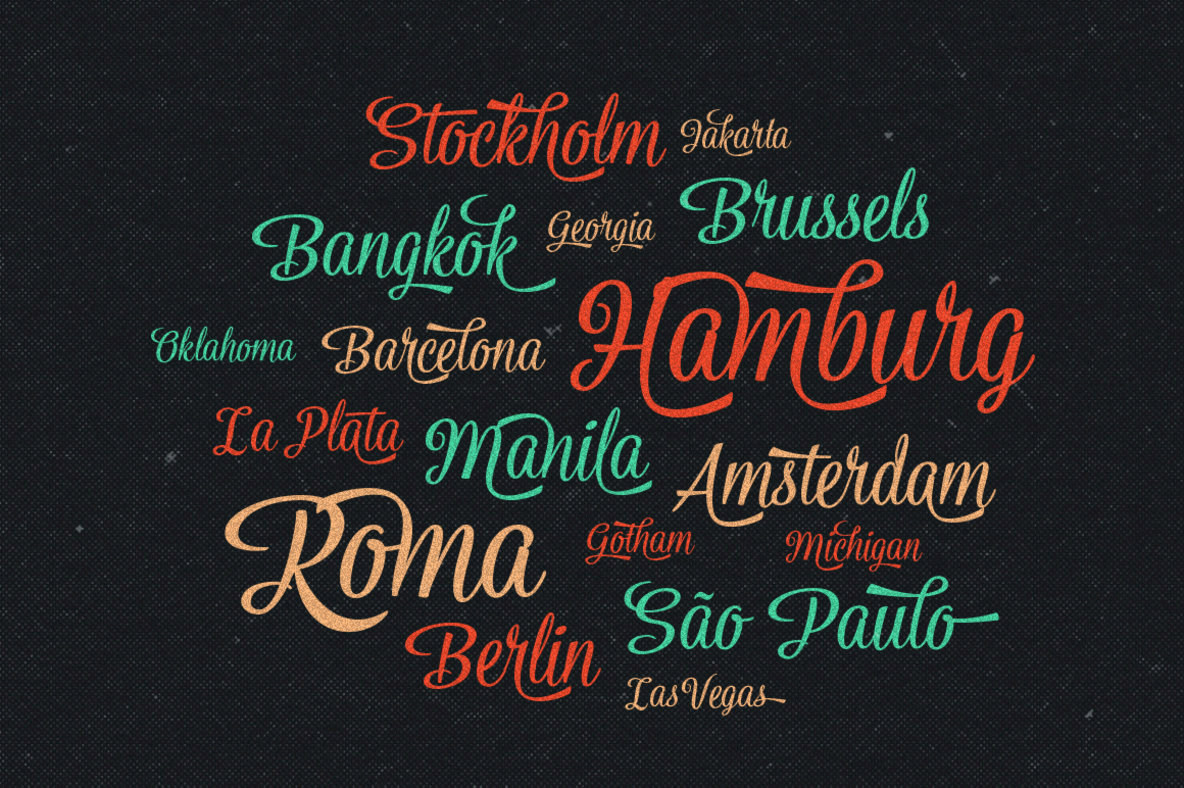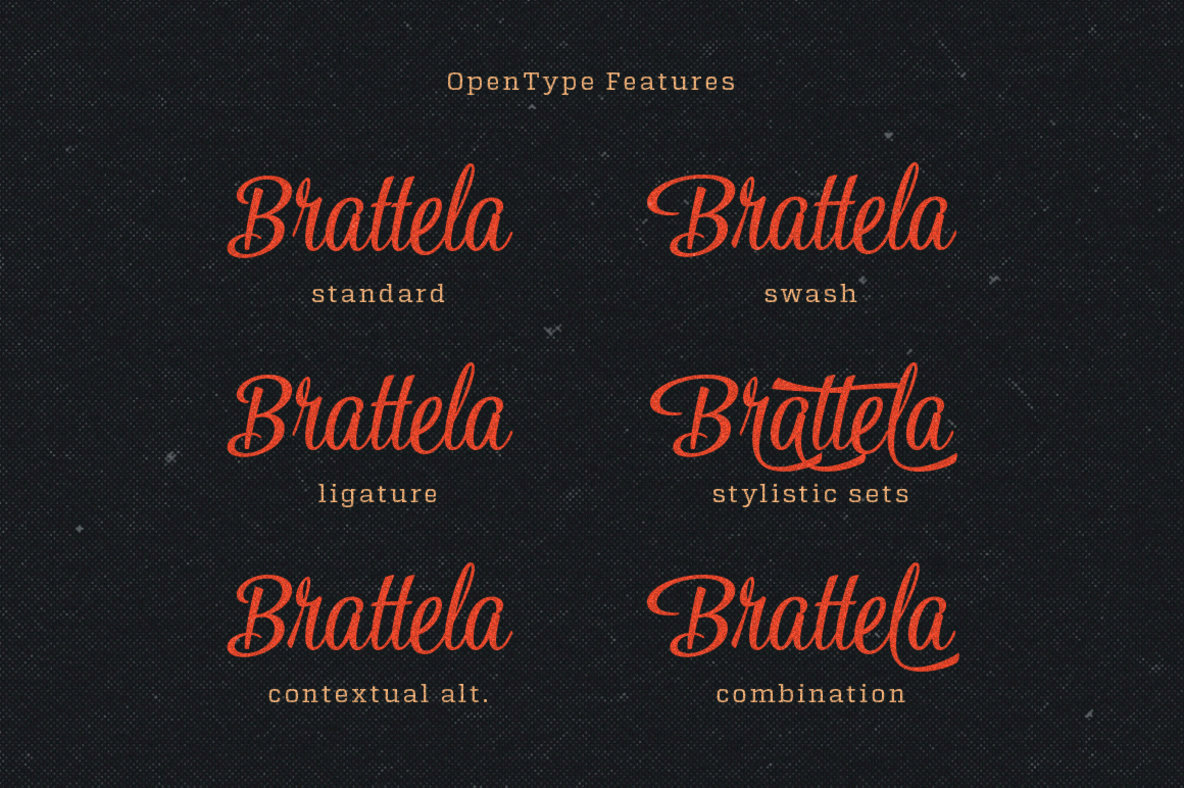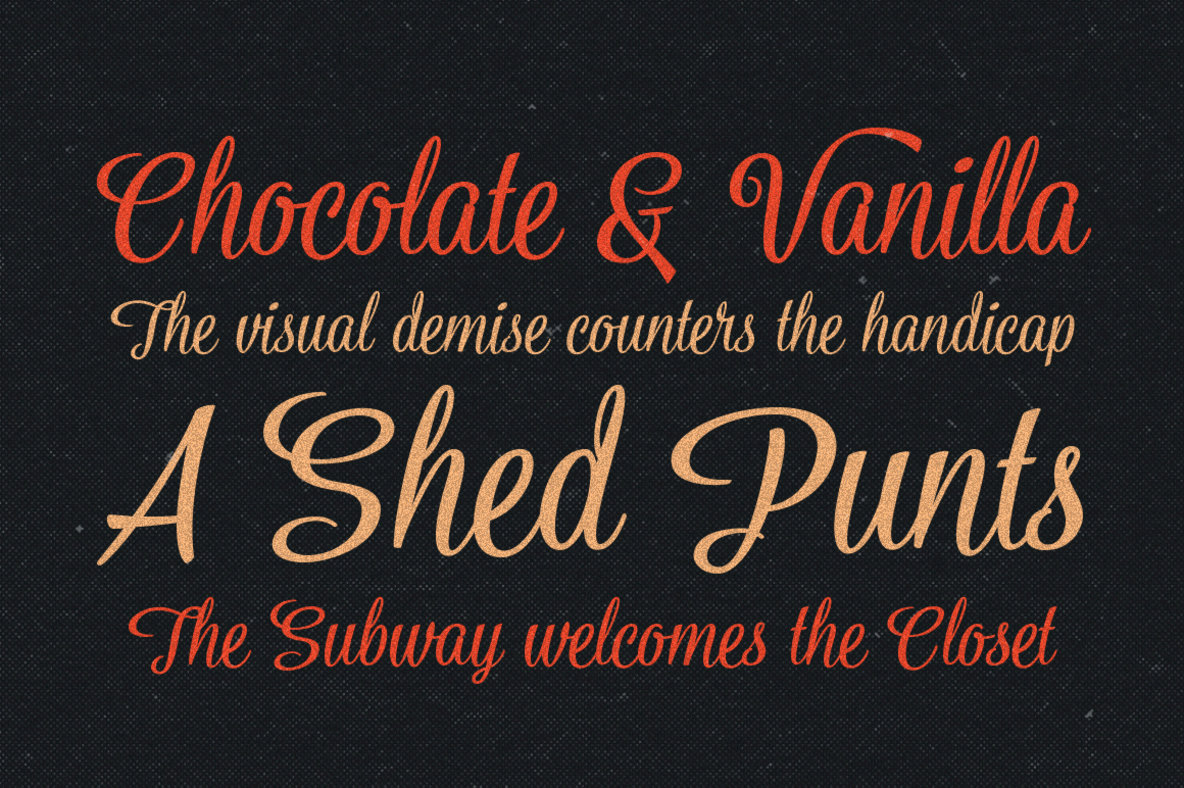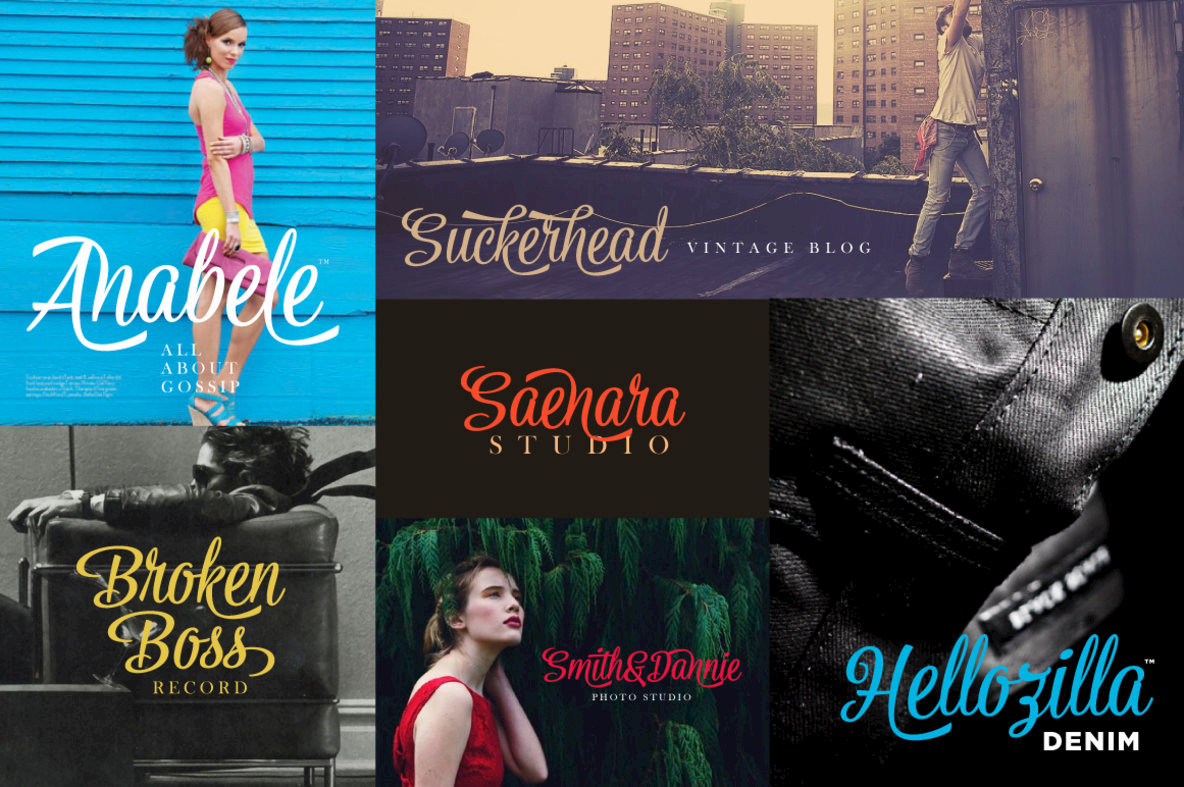
Shaqila Font
Shaqila
Shaqila is a catchy script typeface that gives the elegant feeling with styles. Inspired by classic brush lettering that usually seen at packaging and store signage. The characteristic of Shaqila Font is flowing, natural, and retro. It is suitable for any kind of designs such as packaging, t-shirt, poster, signage, identity/branding, etc.
Shaqila contains 255 glyphs in total and 87 alternative characters to play with. The alternative characters were divided into several OpenType features: Ligature, Contextual Alternates, Swash, and Stylistic Sets. You can create an attractive message by using the alternate characters in your design.